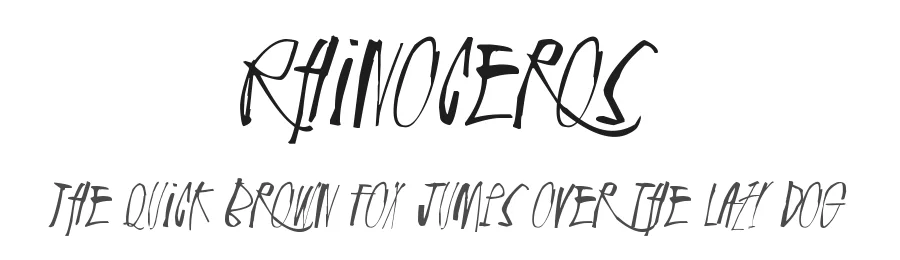
About Cooless Font
This enchanting font will turn any creative idea into a true standout.
Perfect fit for all of your logos, branding, social media, etc.
Get creative with its unique playfulness, and use it to brighten up any crafting project!
Cooless Specifications
Cooless ships with 1 OpenType feature you can switch on in apps that support them (Illustrator, InDesign, Affinity, Figma, CSS font-feature-settings).
Cooless Font is a script font that shines as a display or heading face. Pair it with a clean sans-serif or serif font for body text β the contrast creates a clear hierarchy while the two styles stay balanced and easy to read.
Cooless Font
by DM Letter Studio - Dimas Prasetyo